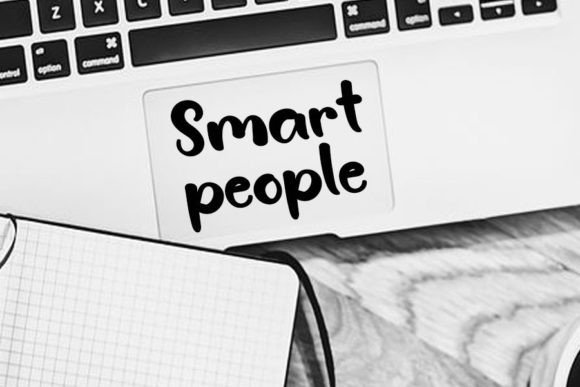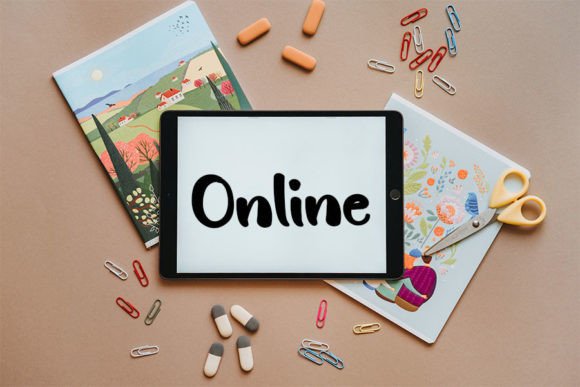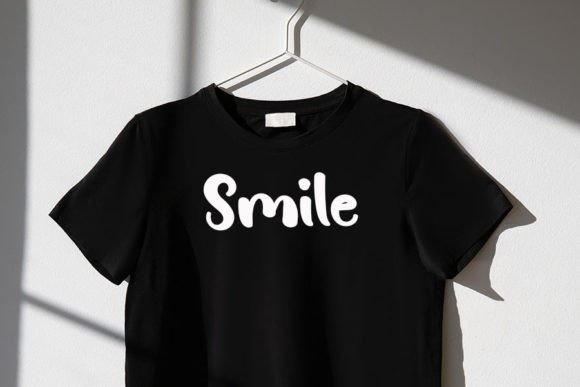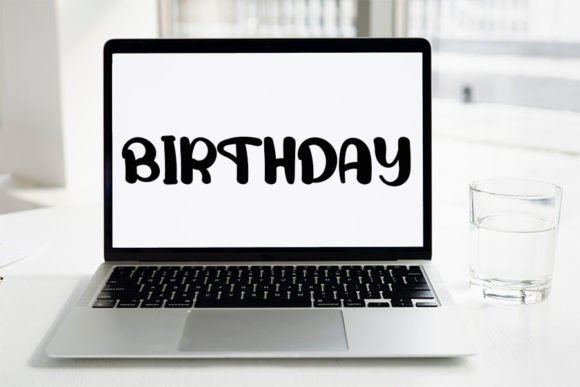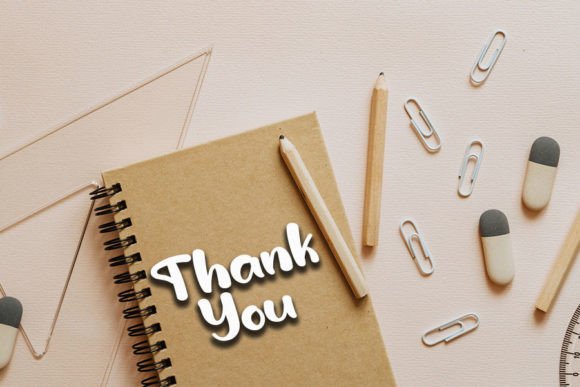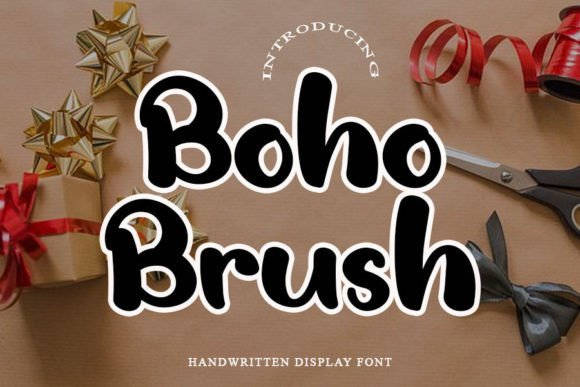
Introducing Boho Brush Font: The Perfect Blend of Elegance and Quirkiness
Are you on the hunt for a font that adds a touch of magic to your designs? Look no further than Boho Brush Font, a beautiful handwritten font that combines elegance with a dash of quirkiness. This versatile font is perfect for designers, crafters, and DIY enthusiasts looking to add a personal touch to their logos, branding, social media, and crafty projects.
The Story Behind Boho Brush Font
Boho Brush Font is a carefully crafted font designed to bring a sense of whimsy and sophistication to your designs. With its clean lines and elegant strokes, this font is perfect for those who want to add a touch of bohemian chic to their work. Whether you’re creating a logo, branding materials, or social media graphics, Boho Brush Font is the perfect choice.
Key Features of Boho Brush Font
- Handwritten with love: Boho Brush Font is a handwritten font, carefully crafted to bring a personal touch to your designs.
- Elegant and quirky: This font combines elegance with a dash of quirkiness, making it perfect for designers who want to add a unique touch to their work.
- Clean and readable: Boho Brush Font is clean and easy to read, making it perfect for use in logos, branding, and social media graphics.
- Versatile: This font is perfect for a wide range of design projects, from logos and branding to crafty DIY projects.
Boho Brush Font is a dream come true for designers and crafters who want to add a personal touch to their work. Whether you’re creating:
- Logos and branding: Boho Brush Font is perfect for creating unique and memorable logos and branding materials.
- Social media graphics: This font is perfect for creating eye-catching social media graphics that stand out from the crowd.
- Crafty DIY projects: Boho Brush Font is perfect for crafters who want to add a personal touch to their DIY projects, from card making to scrapbooking.
Why Choose Boho Brush Font?
With so many fonts to choose from, why choose Boho Brush Font? Here are just a few reasons:
- Unique and distinctive: Boho Brush Font is a unique and distinctive font that will set your designs apart from the crowd.
- High-quality: Boho Brush Font is a high-quality font, carefully crafted to ensure that it looks great in any design.
Get Ready to Add a Touch of Magic to Your Designs
In conclusion, Boho Brush Font is a beautiful and versatile font that is perfect for designers, crafters, and DIY enthusiasts. With its elegant and quirky style, this font is sure to add a touch of magic to any design. Whether you’re creating logos, branding, social media graphics, or crafty DIY projects, Boho Brush Font is the perfect choice. So why wait? Download Boho Brush Font today and start creating something truly special.